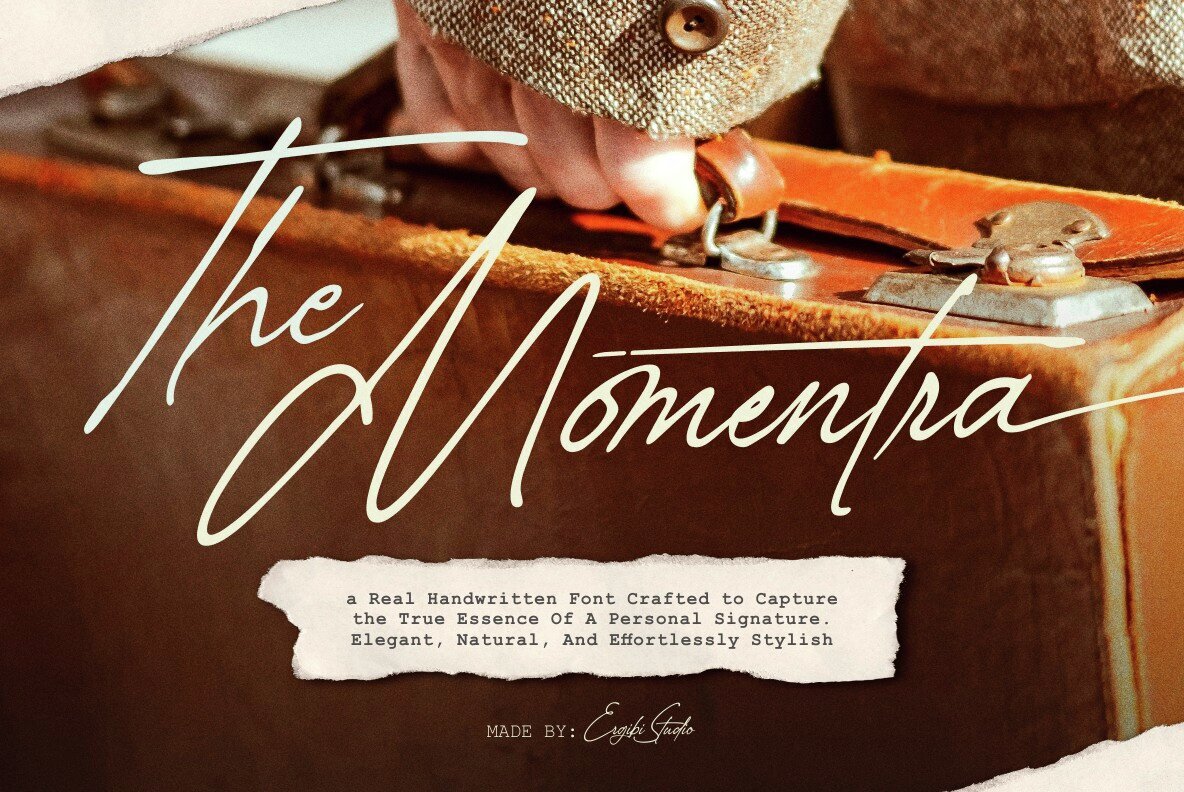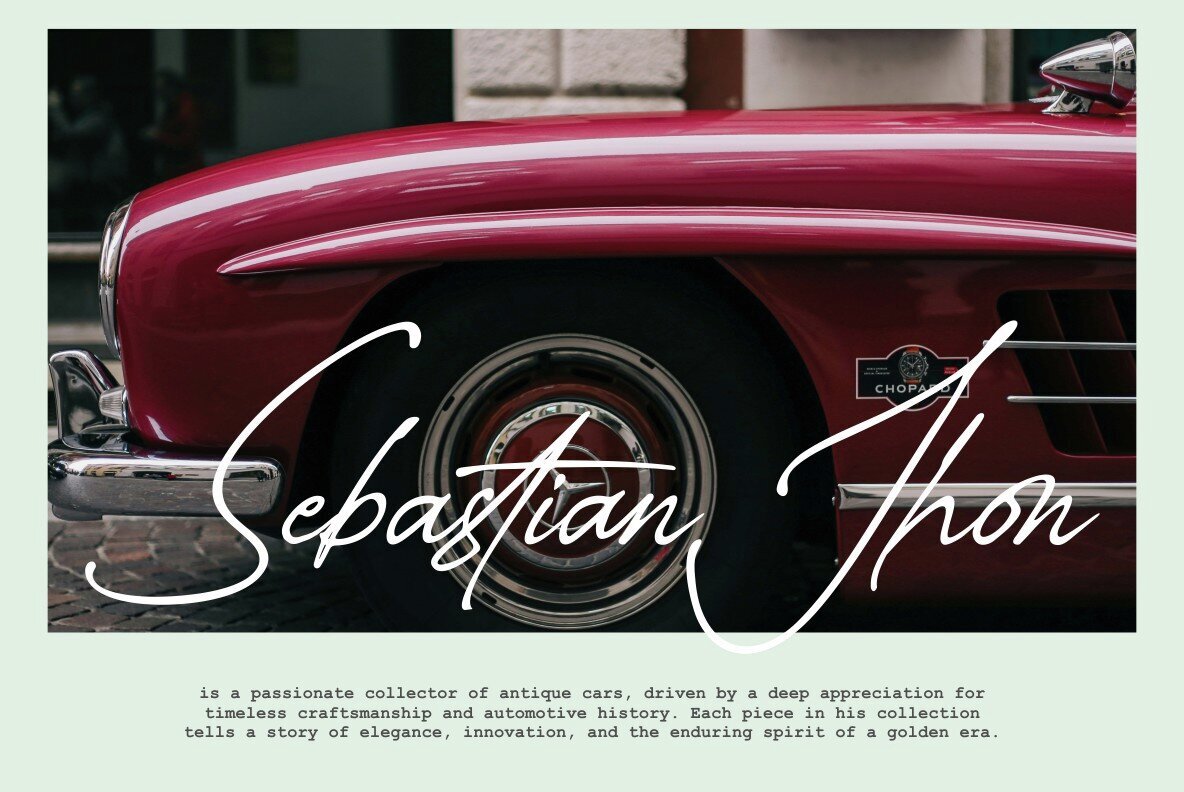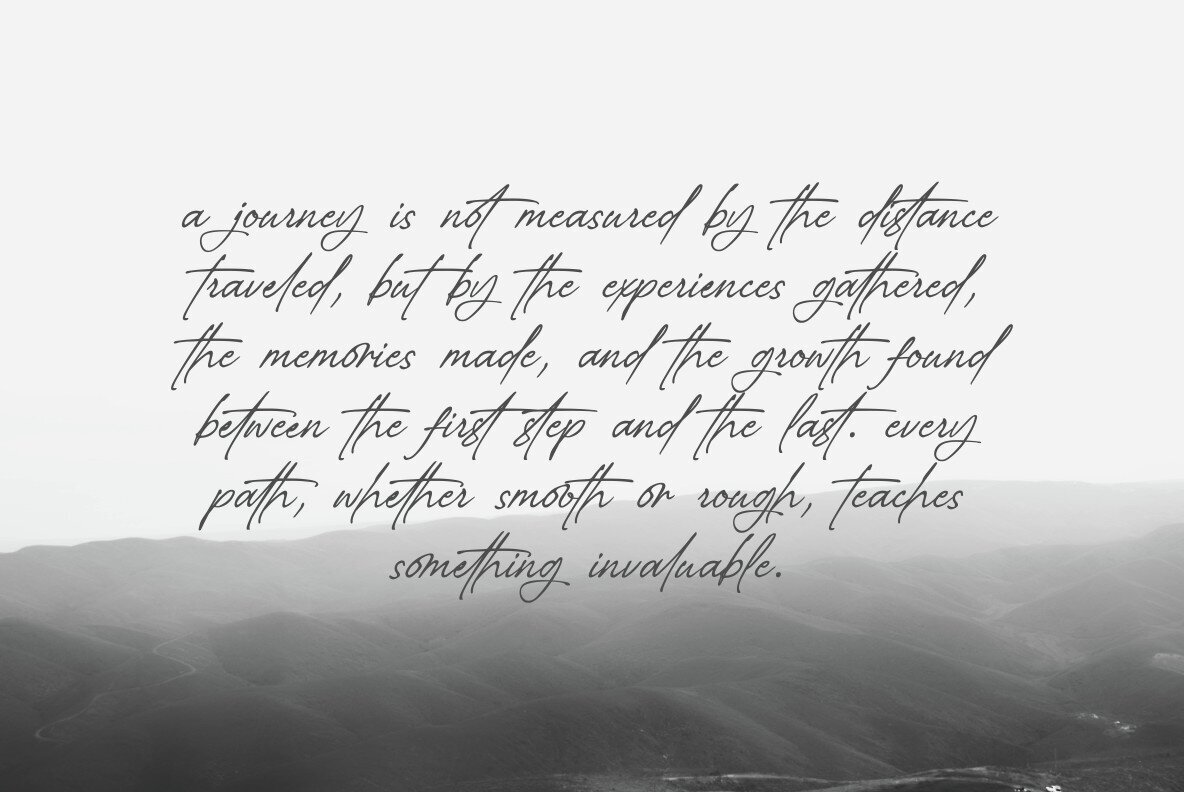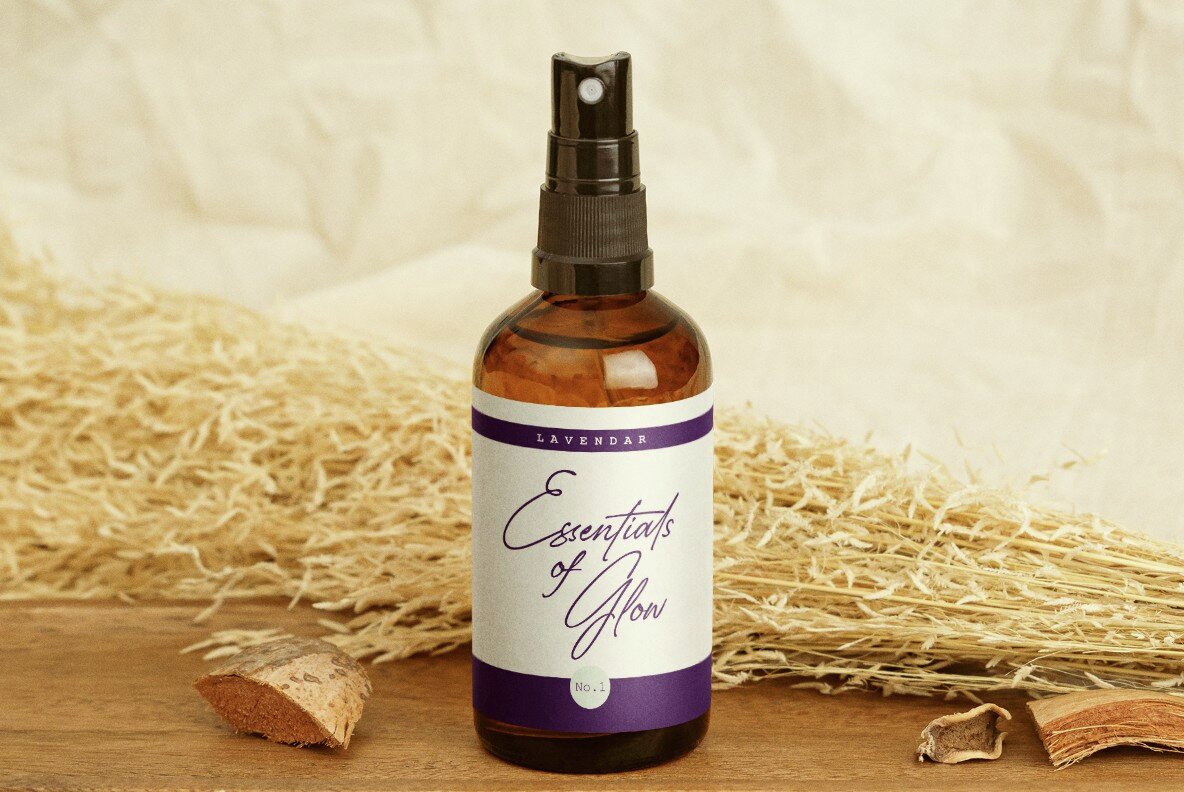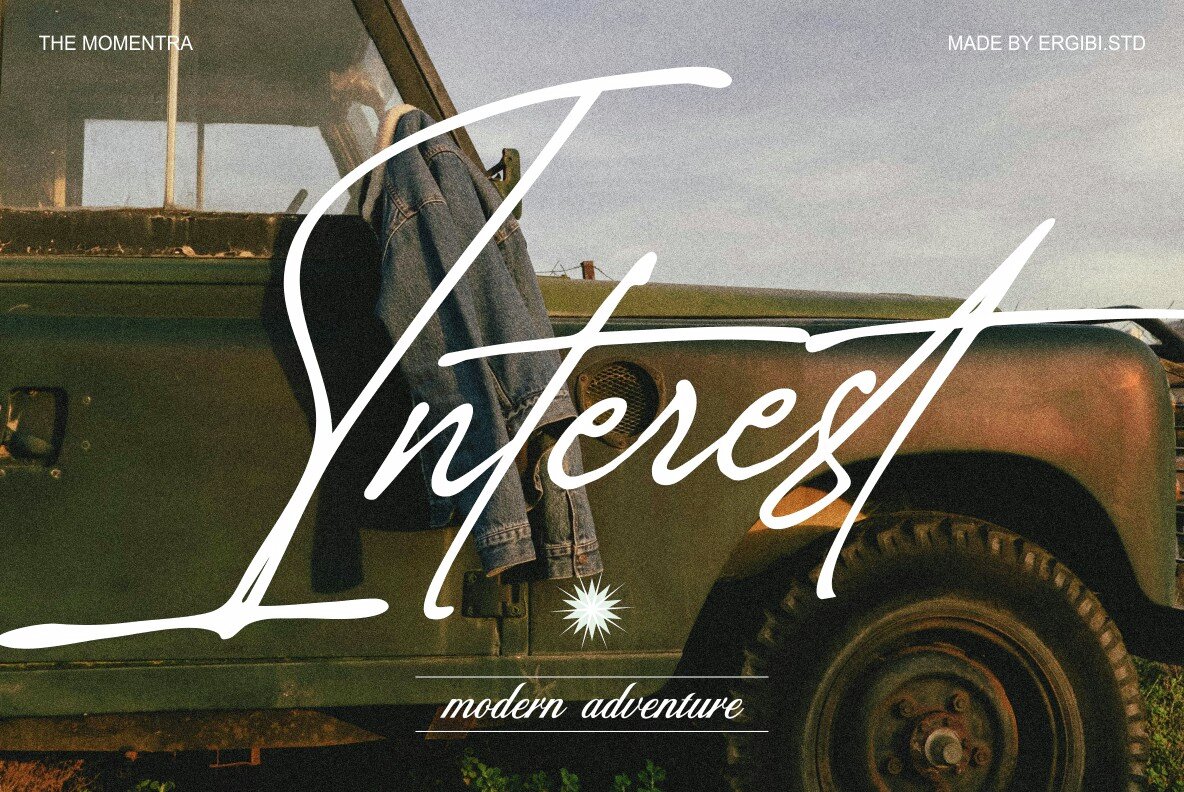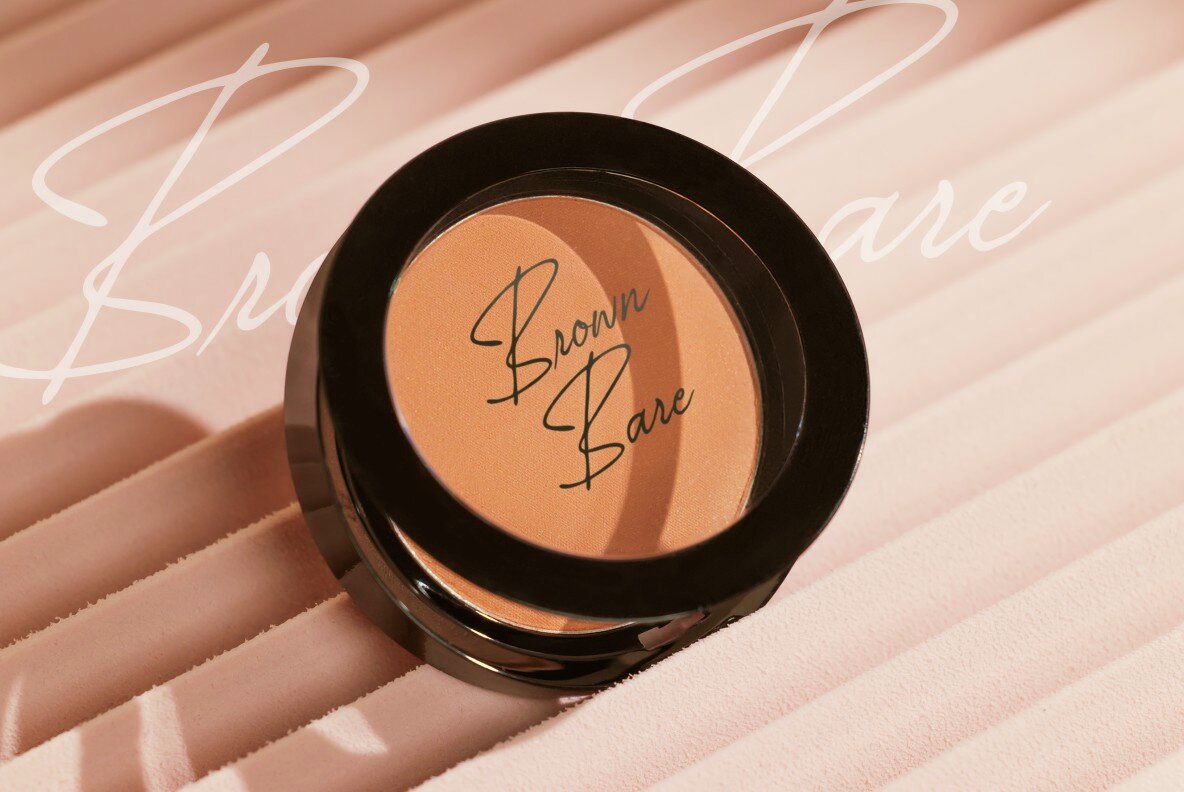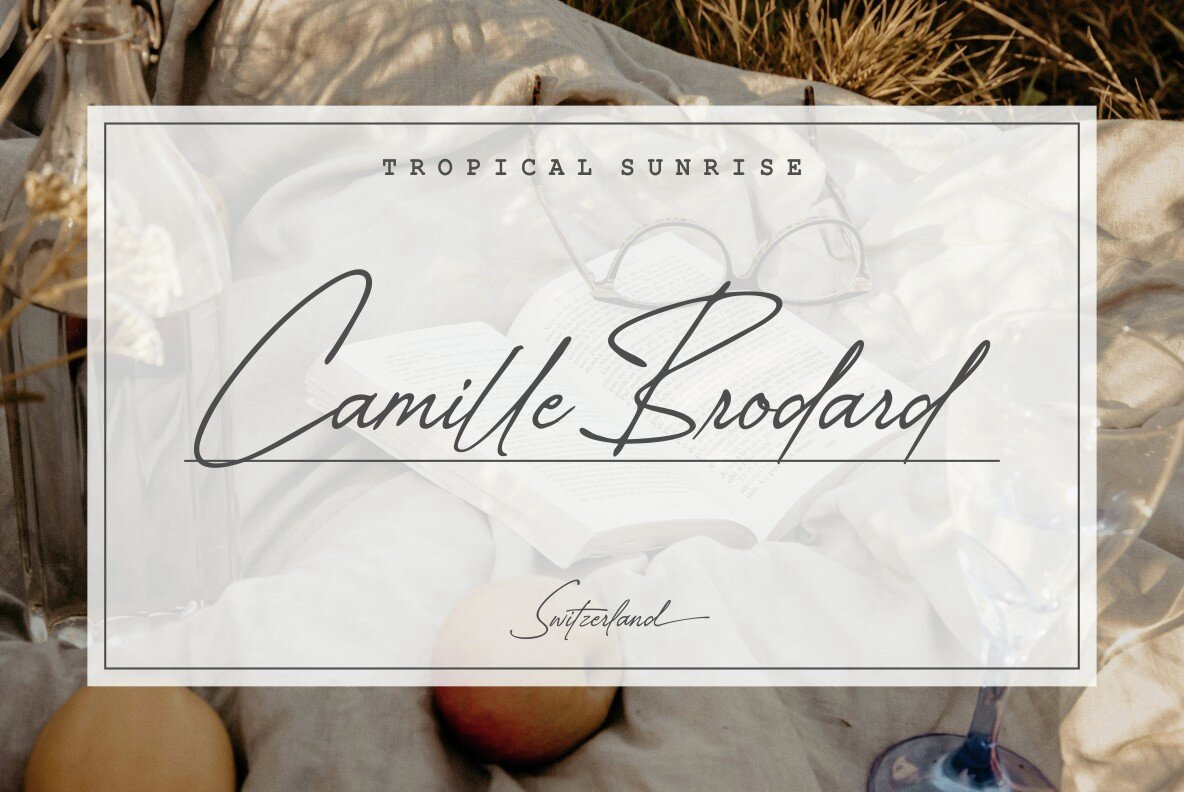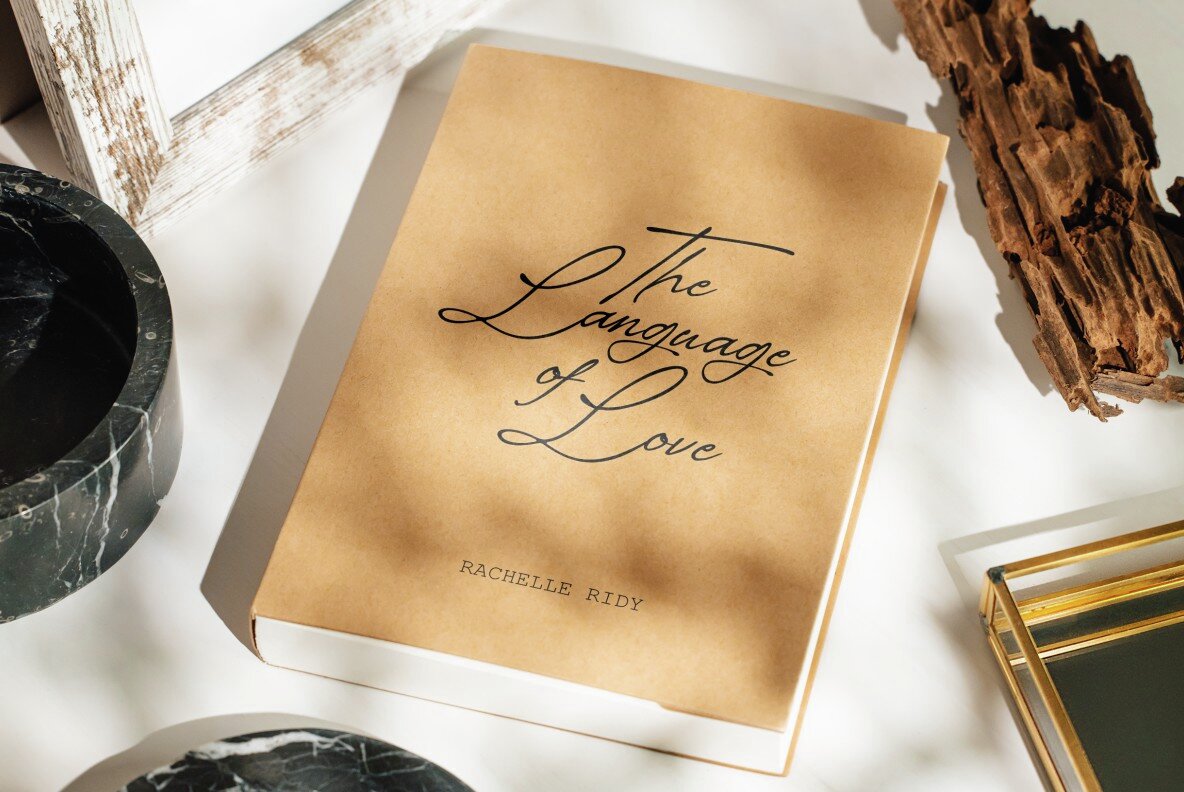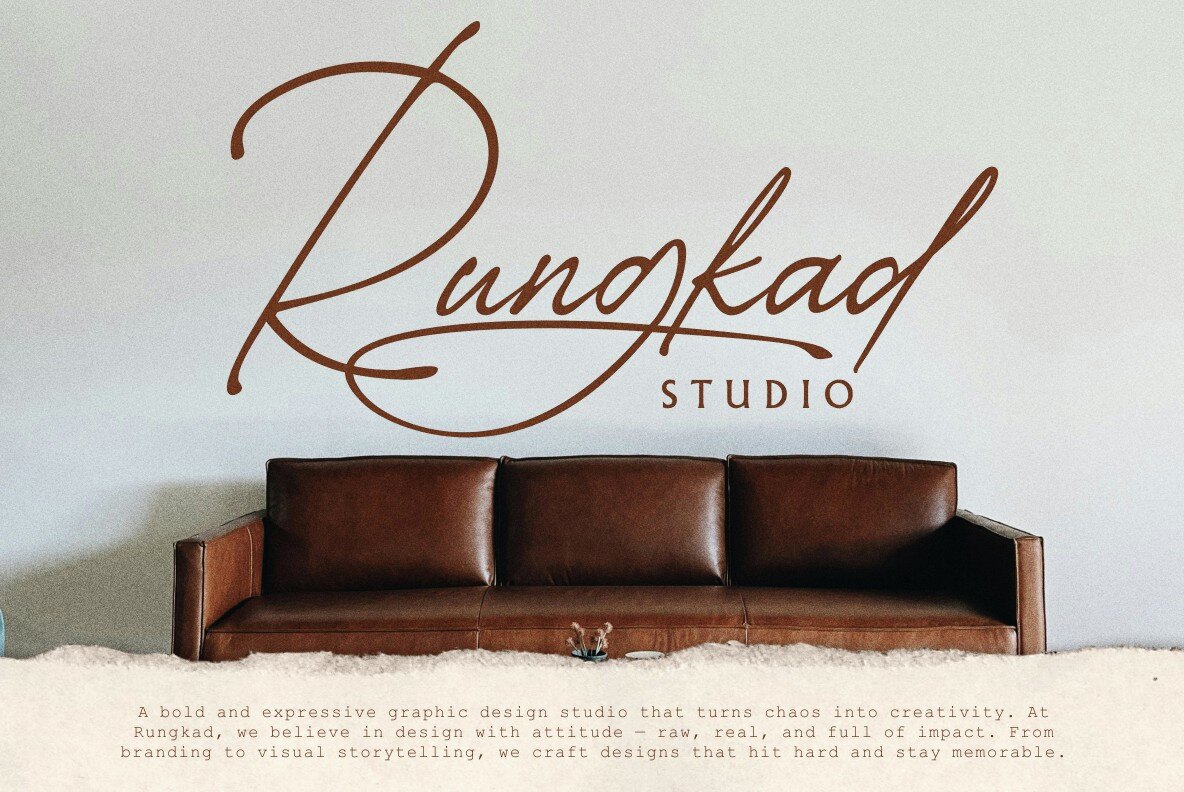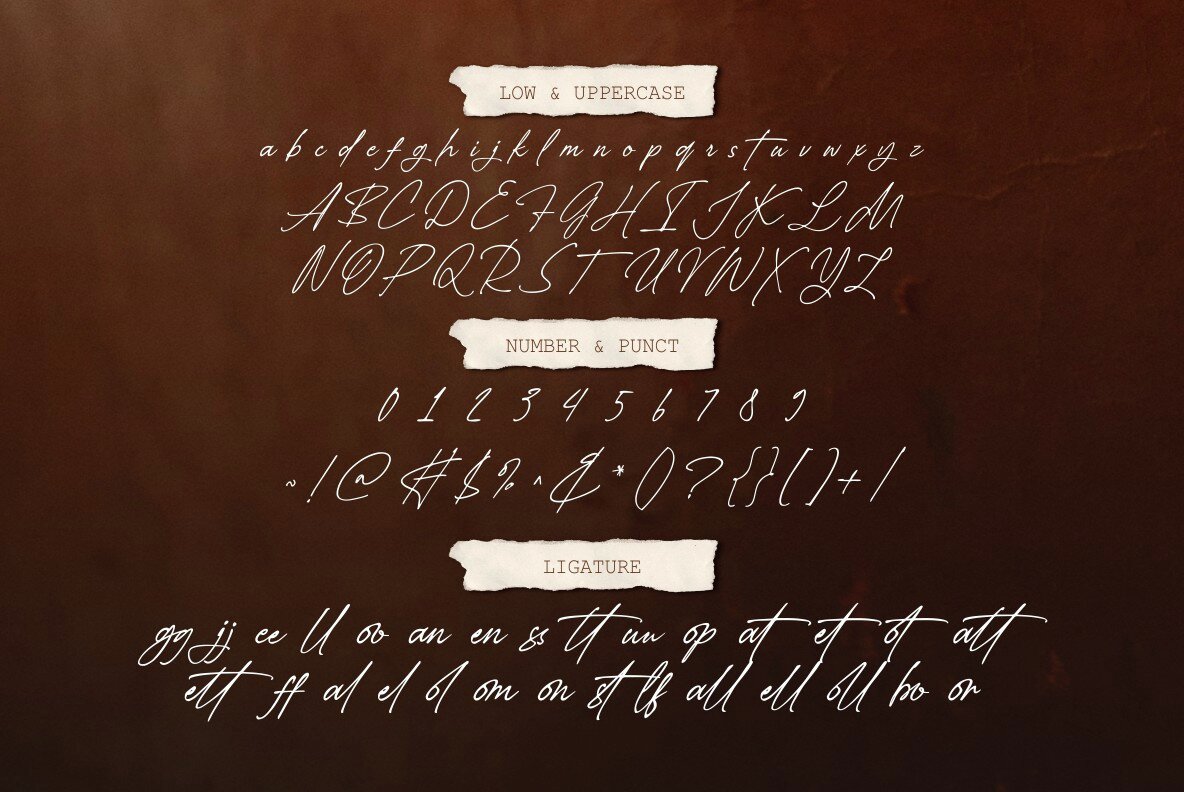
Momentra Font
Momentra
Infuse your designs with authenticity and sophistication through Momentra. This handwritten font captures the true essence of a personal signature, balancing elegance and natural style seamlessly. Momentra is ideal for projects ranging from branding and invitations to logos and editorial designs. Its smooth curves and delicate strokes lend a timeless charm to any venture, adding a distinctive personality and warmth.Momentra: Capturing the Essence of Handwritten Elegance